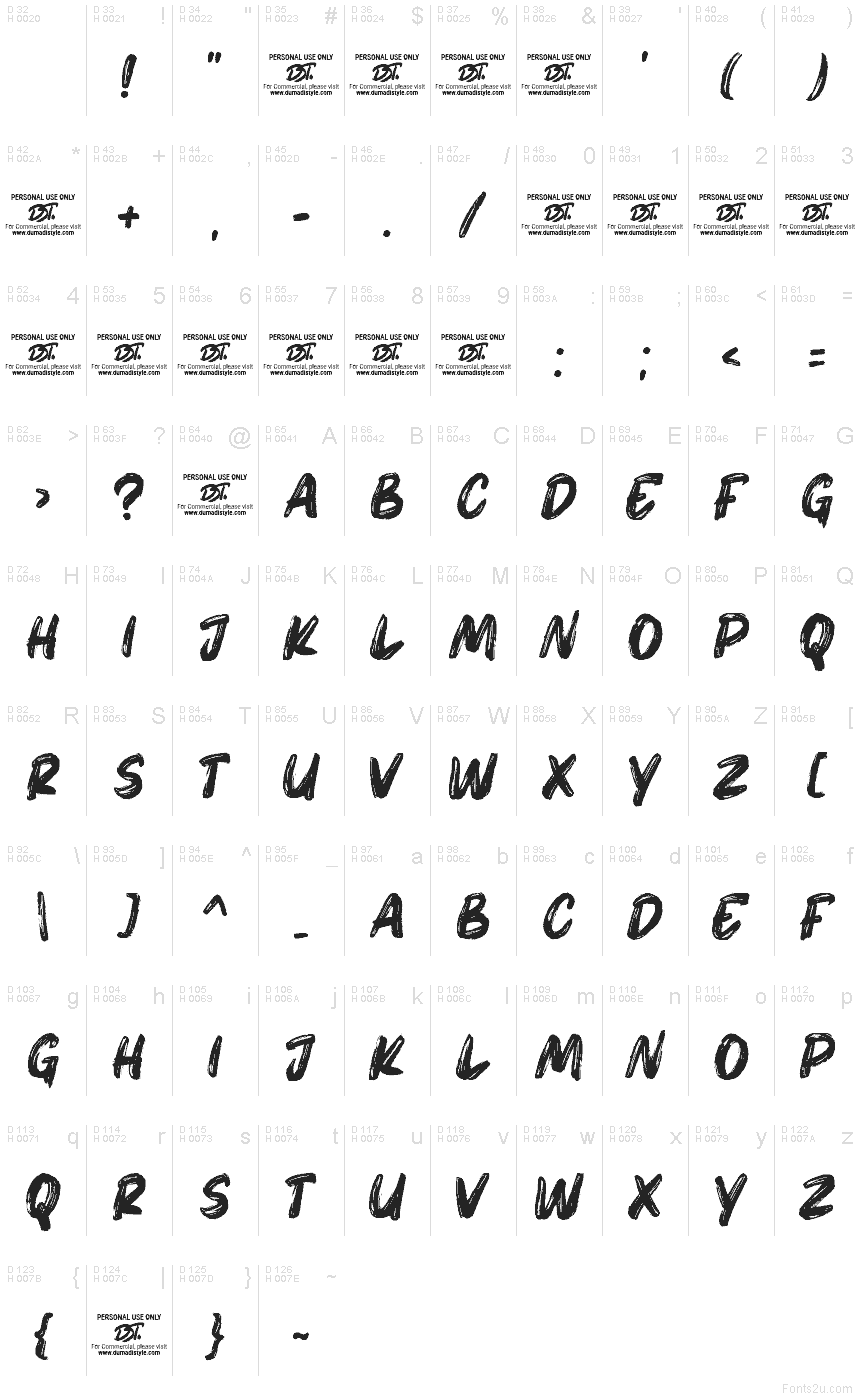
Lasters
Lasters font by DumadiStyle is a bold brush typeface with grunge texture and expressive strokes that give it a raw, authentic look. Its rough appearance and handcrafted feel exude an energetic vibe, making it perfect for designs seeking urgency or creativity.
This free bold font is ideal for creative industry branding, apparel design, music album covers, event posters, book titles, video game graphics, packaging design, website headers, magazine layouts, and social media graphics.